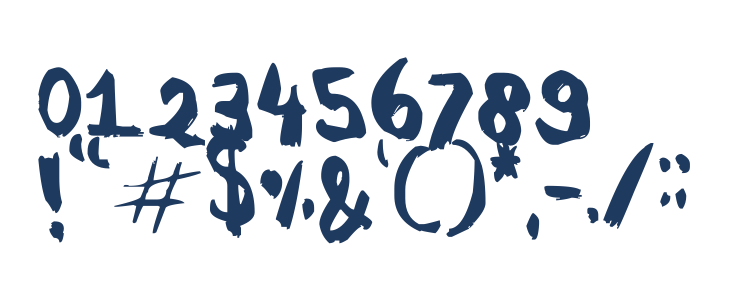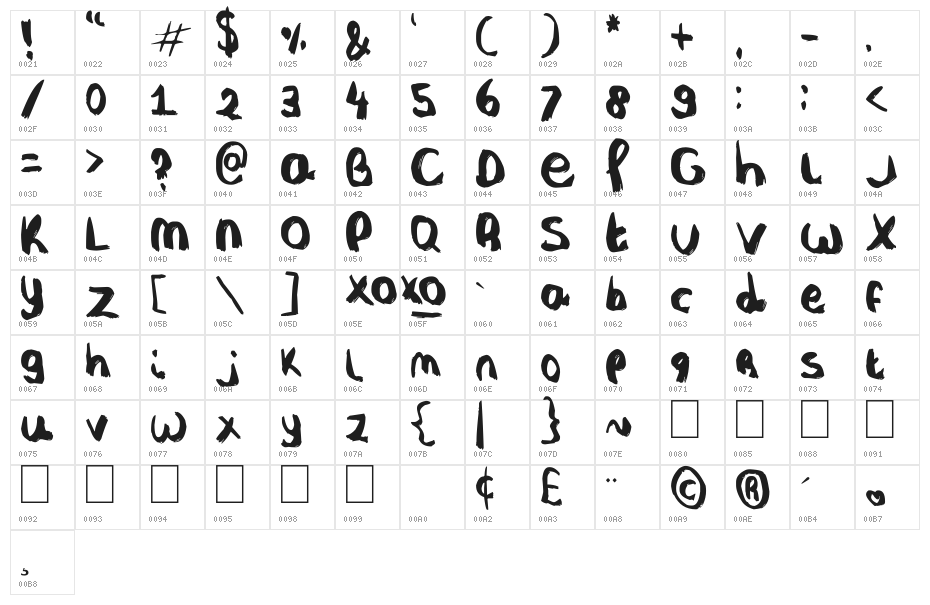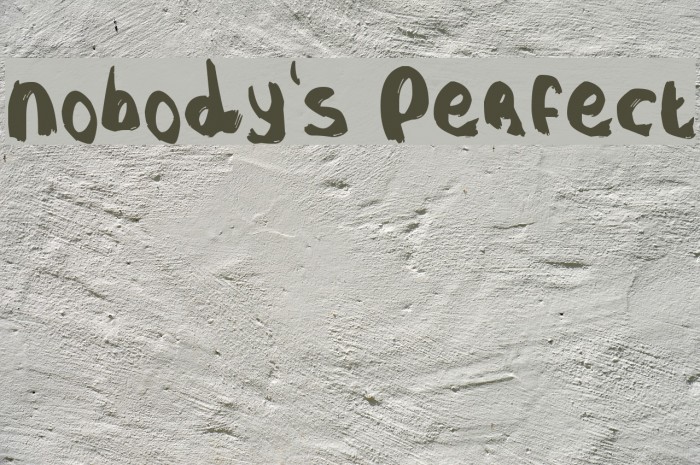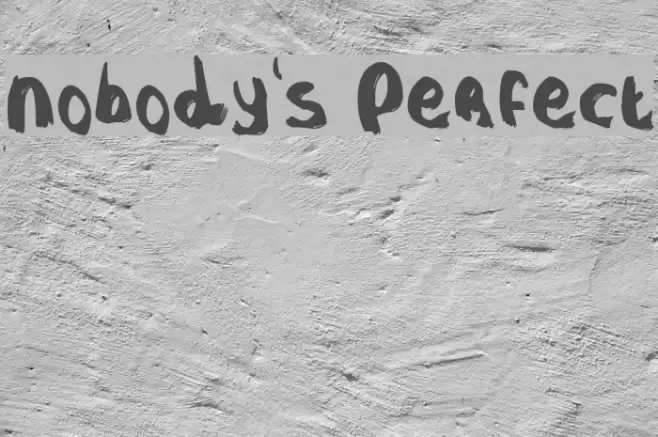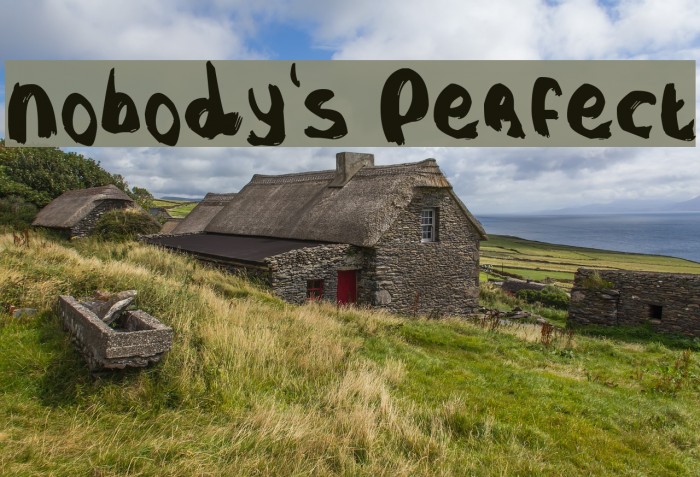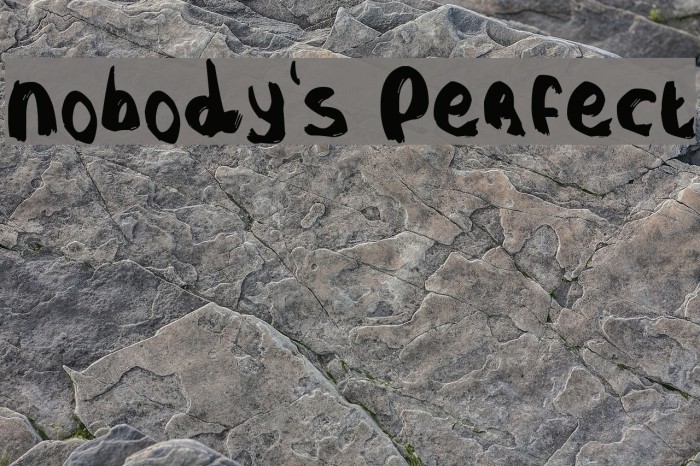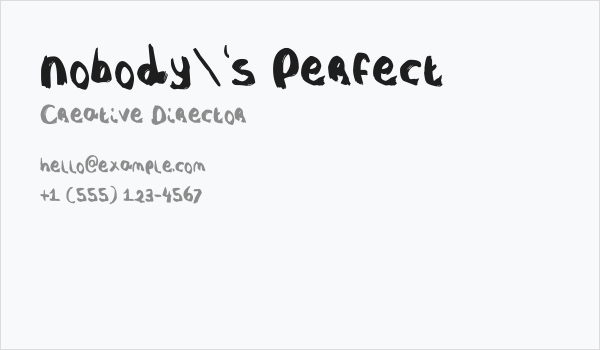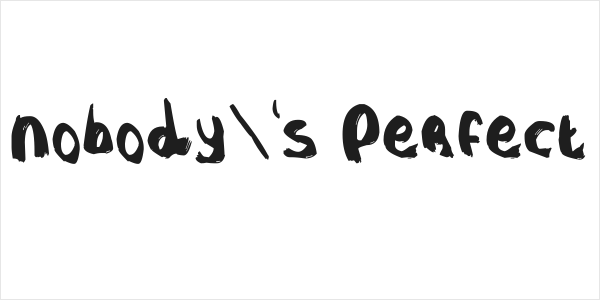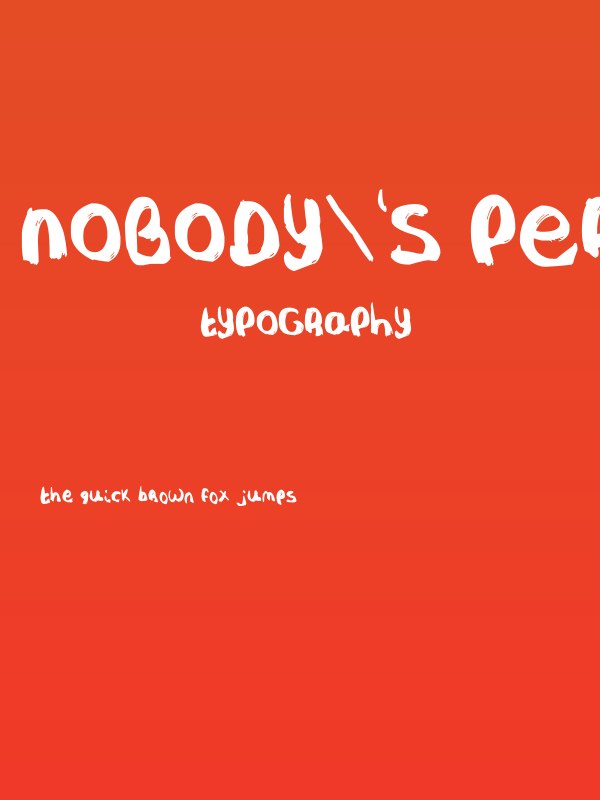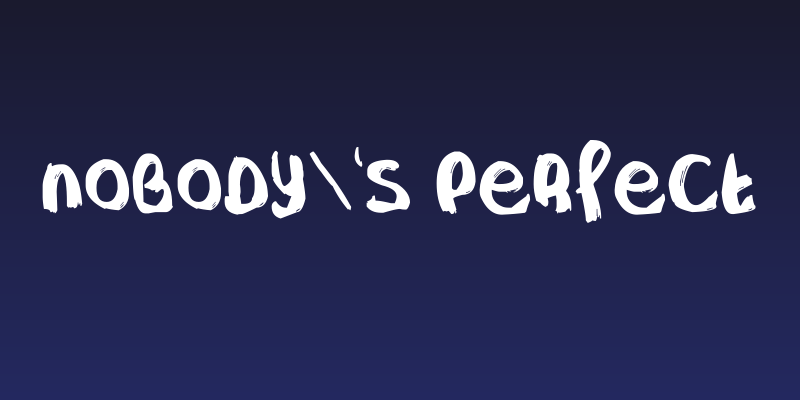
Nobody's Perfect Font
Nobody's Perfect Description
This font exudes a bold, expressive style with a hand-painted appearance. The characters are irregular and dynamic, giving a sense of movement and energy. The strokes are thick and uneven, enhancing the artistic and spontaneous feel. The uppercase and lowercase letters are distinct yet maintain a cohesive look, while the numbers and special characters follow the same lively design. This font is perfect for projects that require a personal, creative touch.
| Use Case | Logos, Posters, Artistic projects |
| Proposed Projects | Ideal for artistic projects, posters, album covers, and branding that seeks a personal, creative flair. |